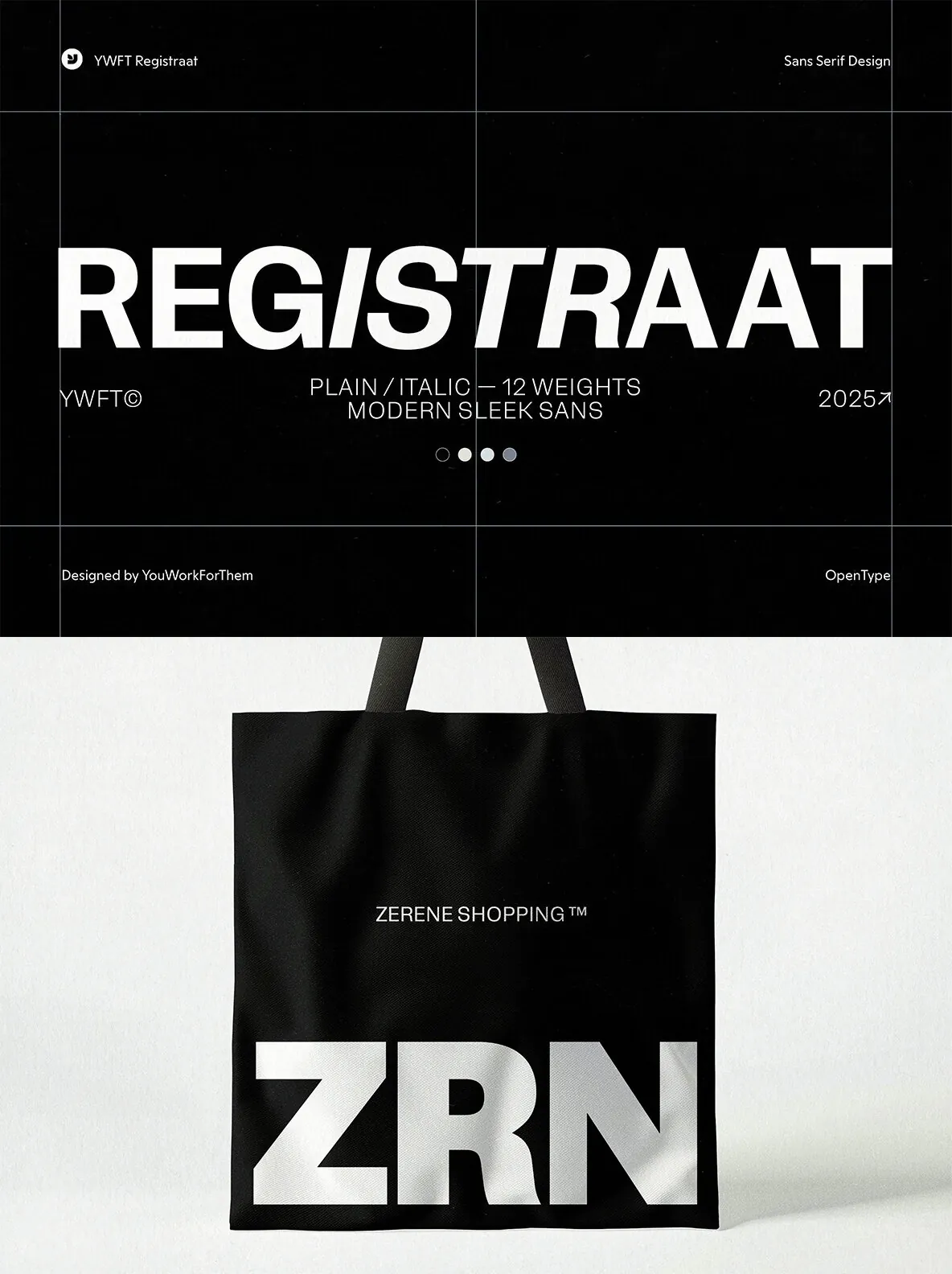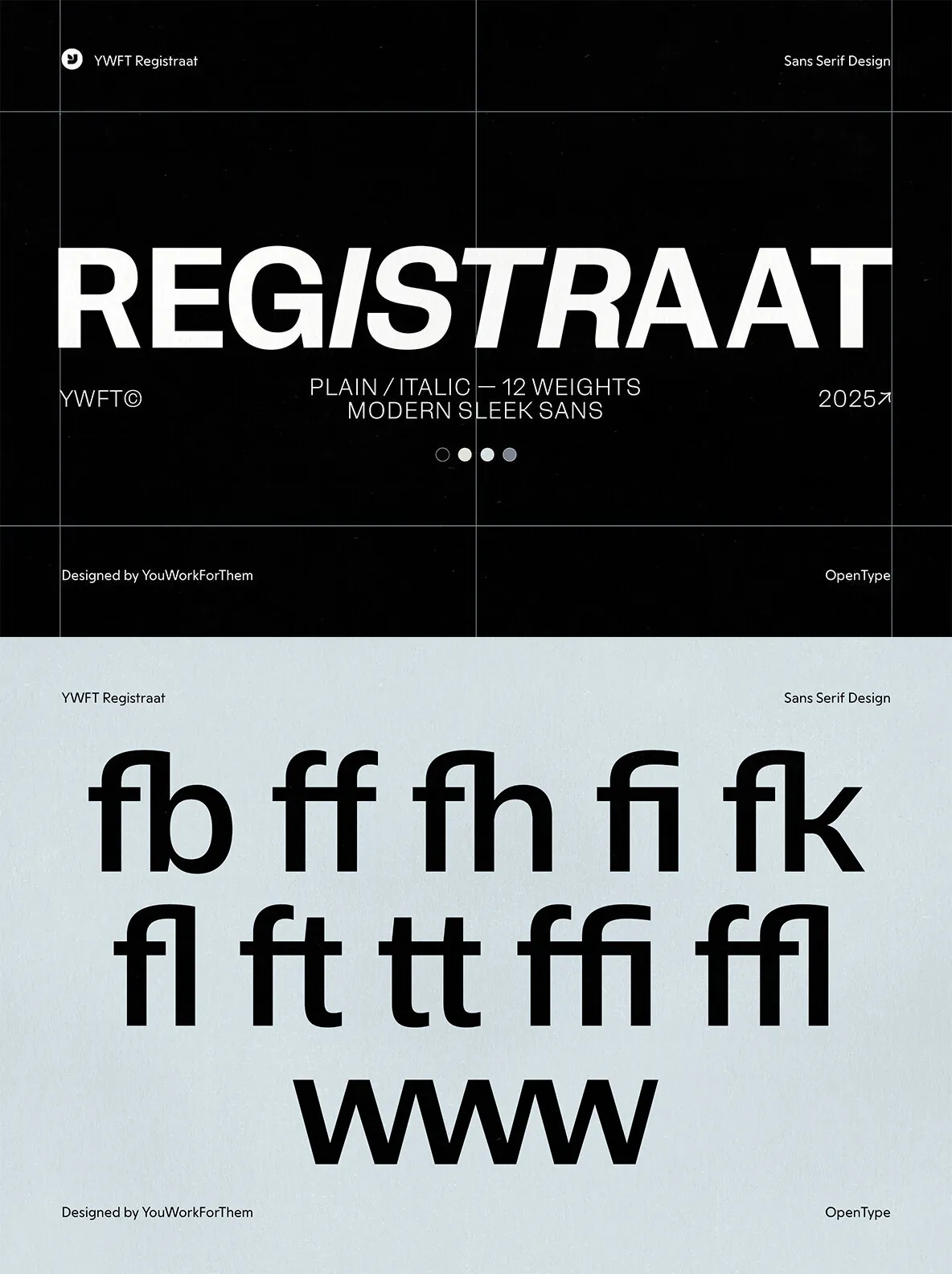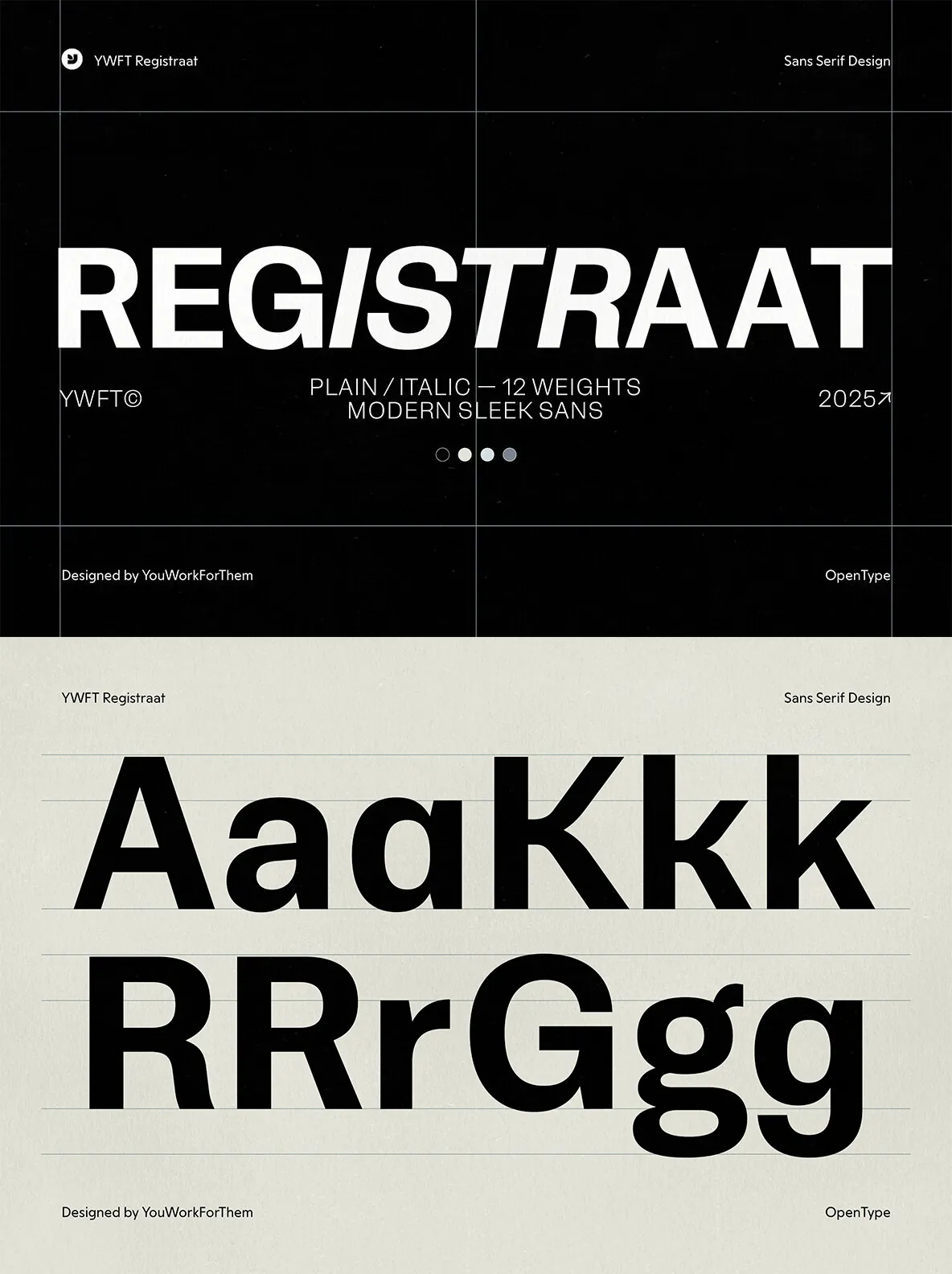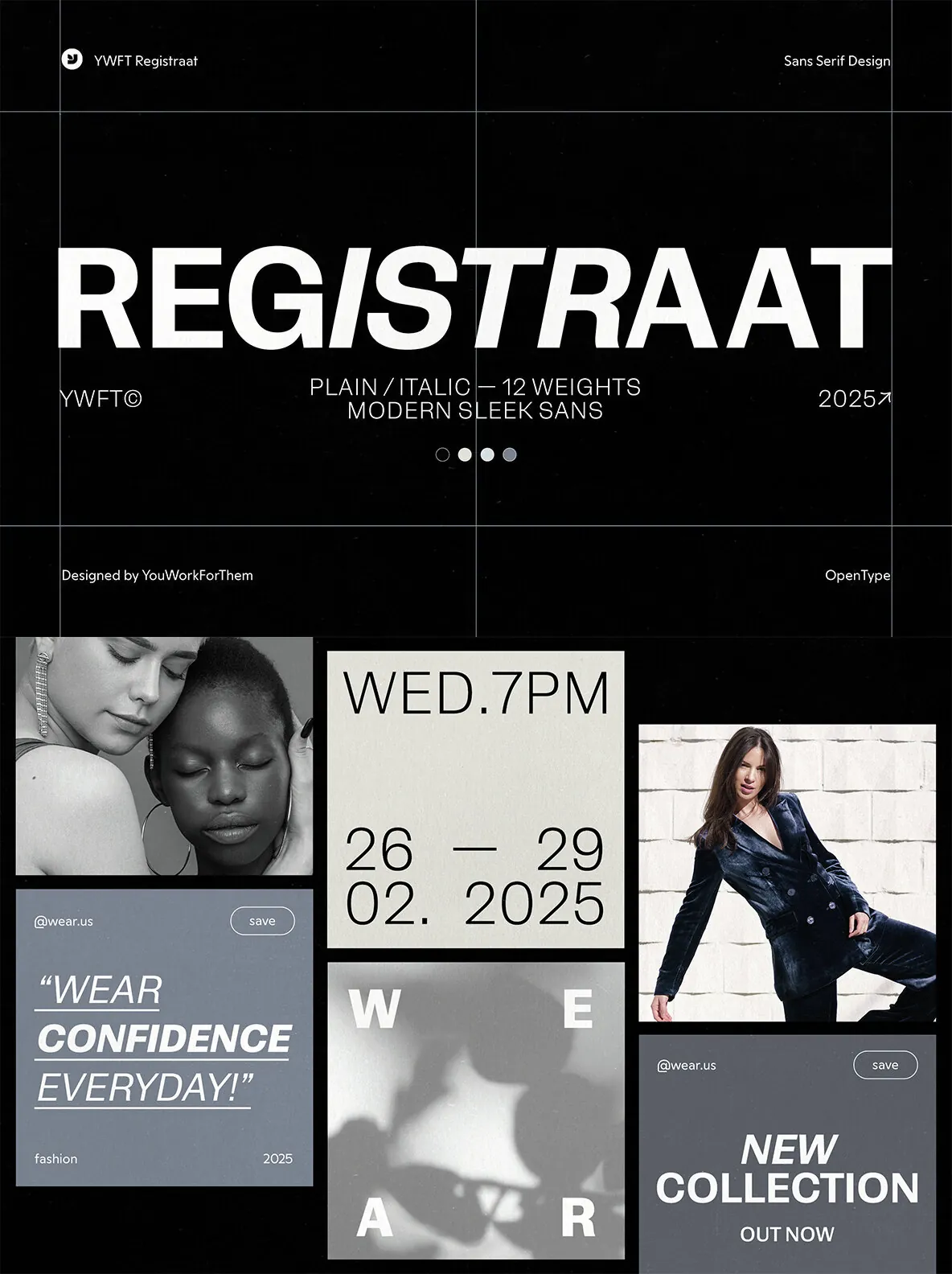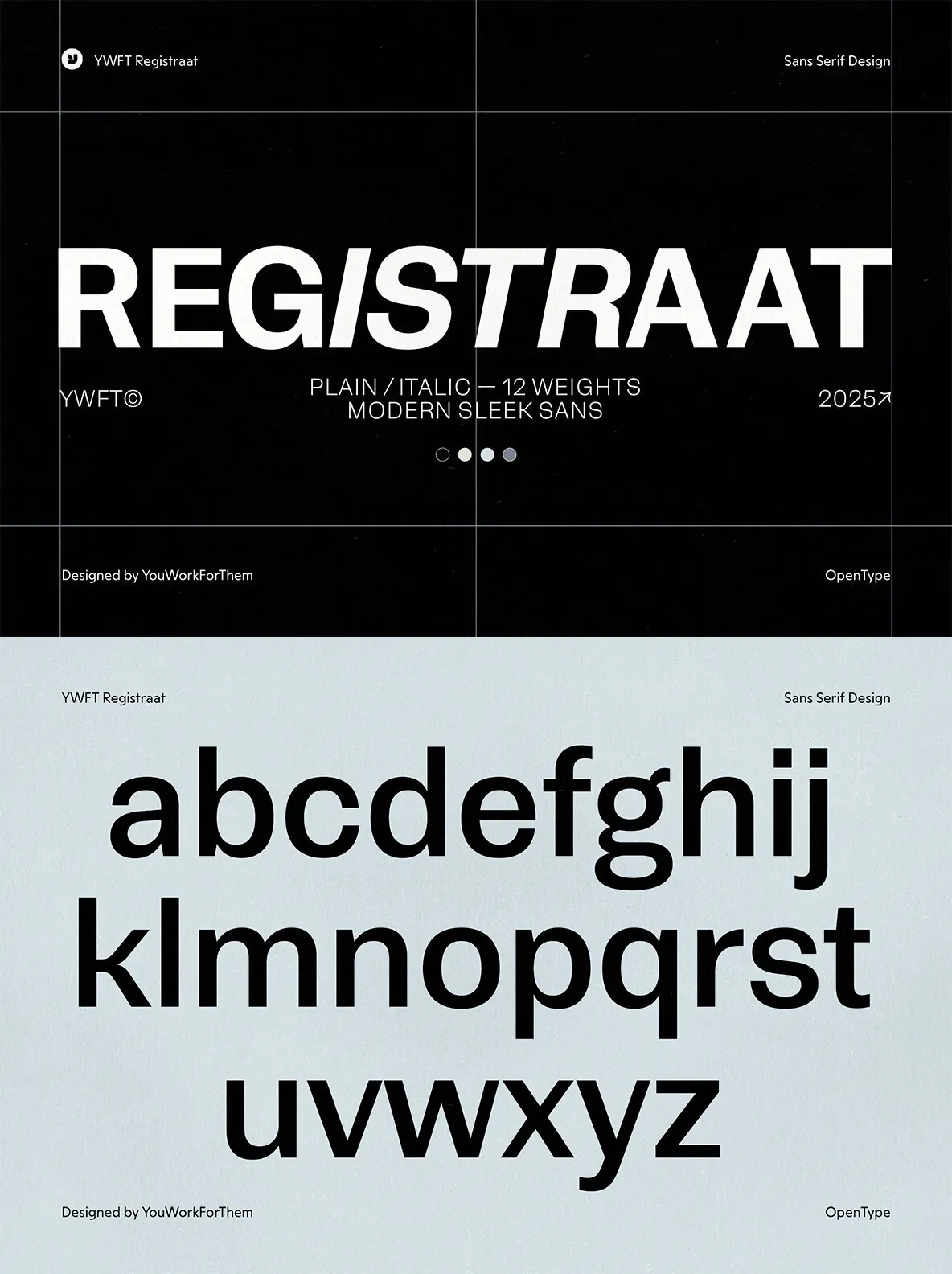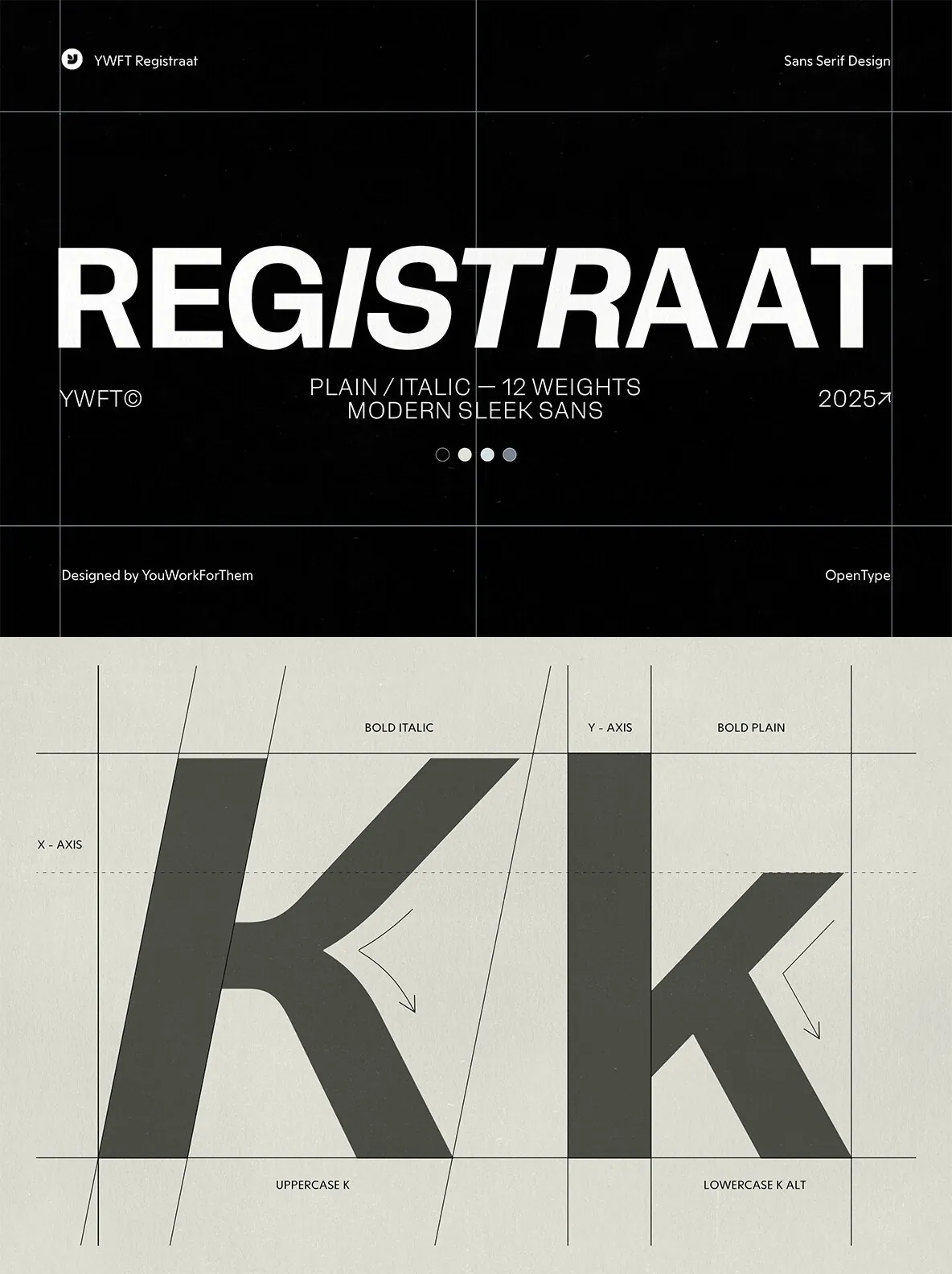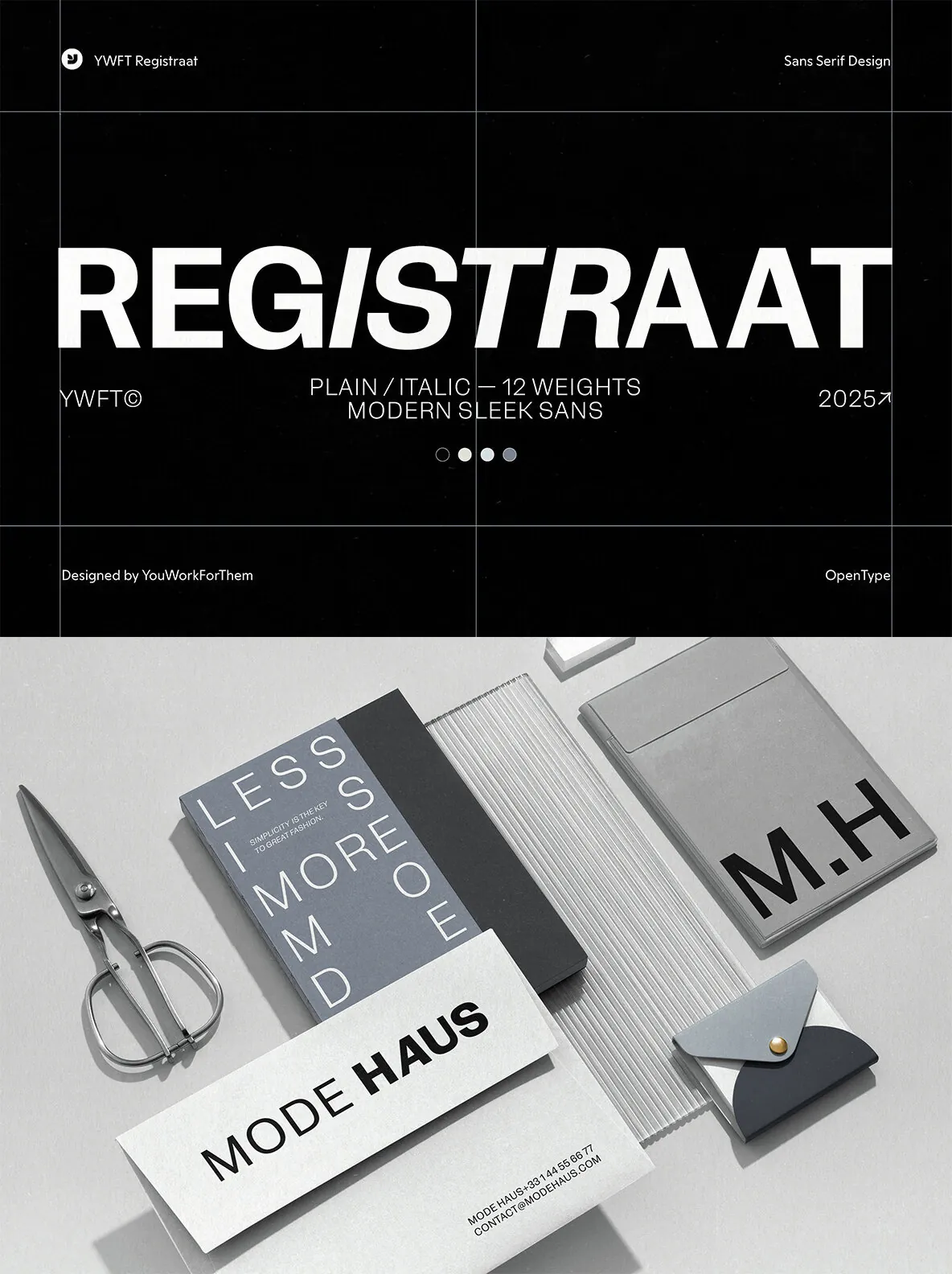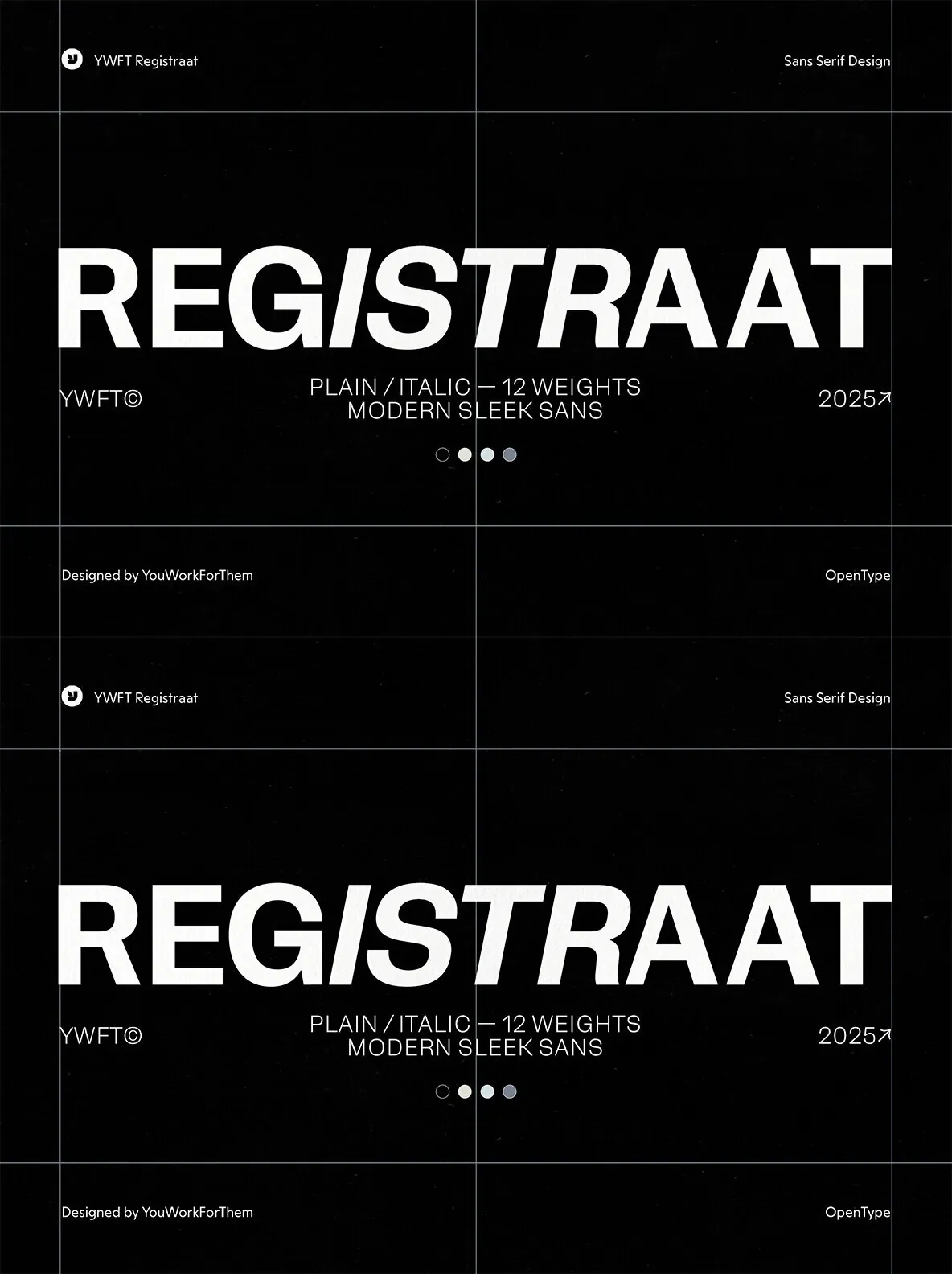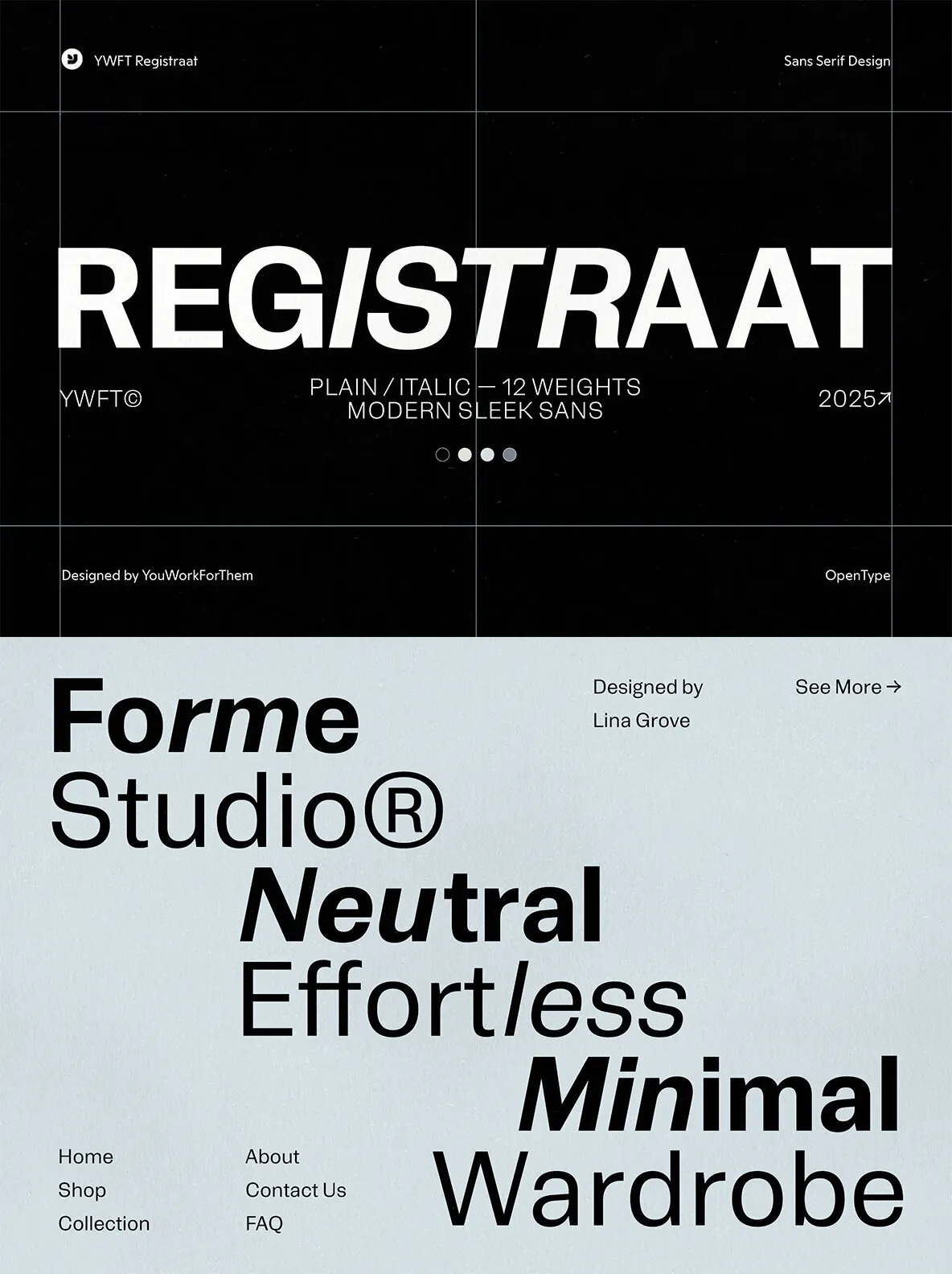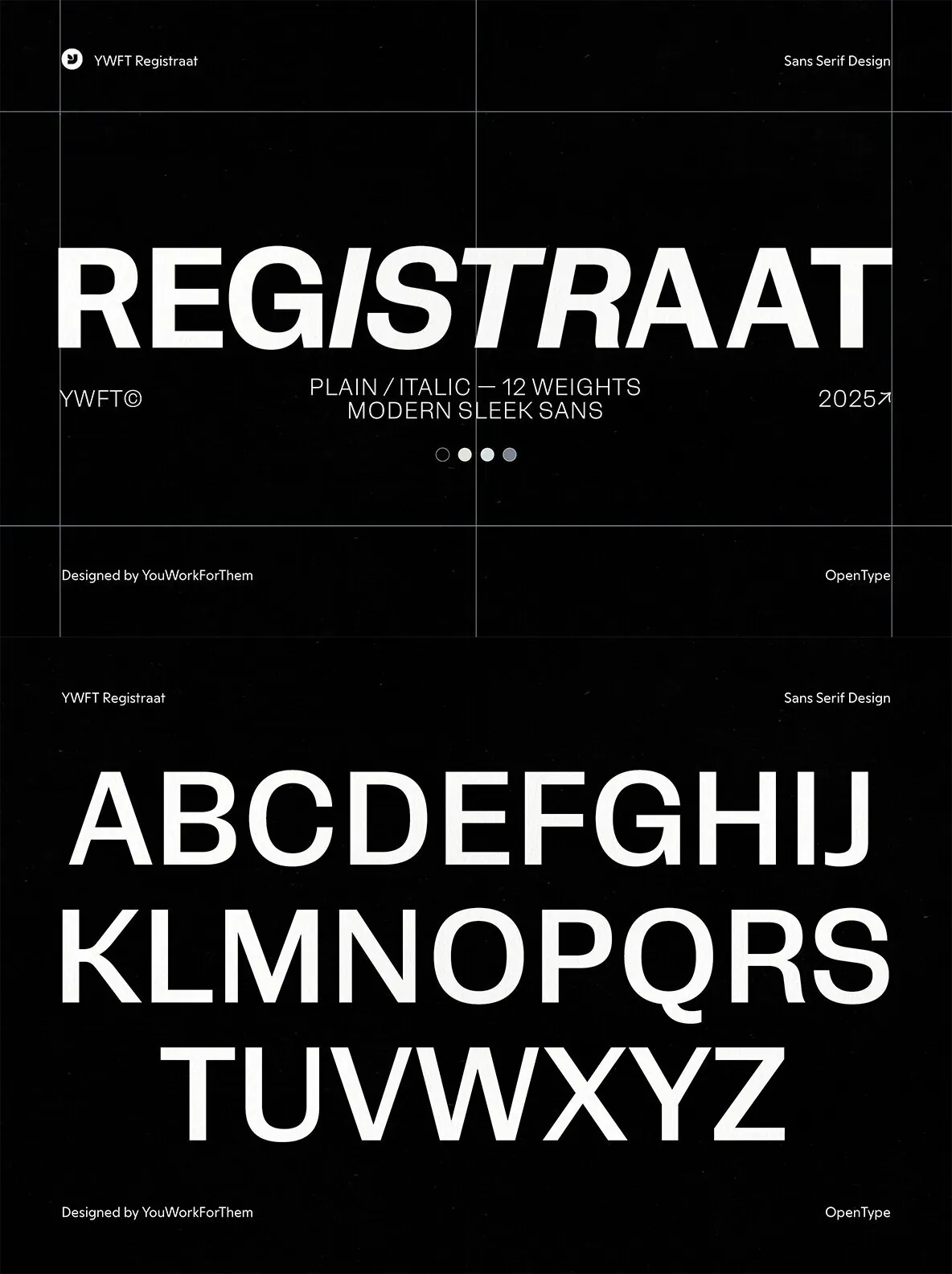
YWFT Registraat: Modern Sans with Comprehensive Features
YWFT Registraat offers a contemporary approach to sans serif typography. With a sharp, versatile design and extensive language support, this typeface caters to today’s branding, web, and fashion projects. Its modern proportions and clean lines ensure clarity, whether applied to digital interfaces, editorial spreads, or print collateral. The family includes a broad range of styles, providing adaptability for projects seeking both practicality and aesthetic refinement.
Twelve styles with six weights and matching italics for cohesive visual systems
Over 500 glyphs per style for nuanced typographic choices
Modern OpenType features, including stylistic alternates, ligatures, and tabular figures
Support for Latin, Greek, and Pan African scripts to meet diverse linguistic needs
YWFT Registraat is designed for creative professionals who value attention to detail and ease of use. Its combination of versatility, broad character coverage, and modern features positions it as a relevant choice for designers seeking a reliable, timeless sans serif.